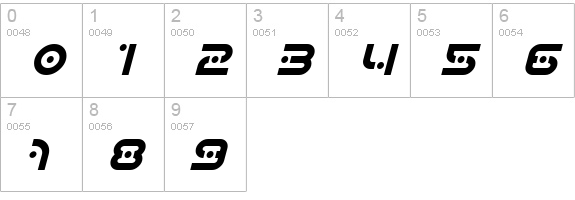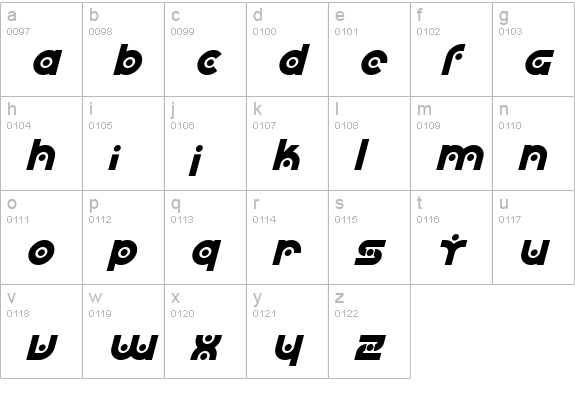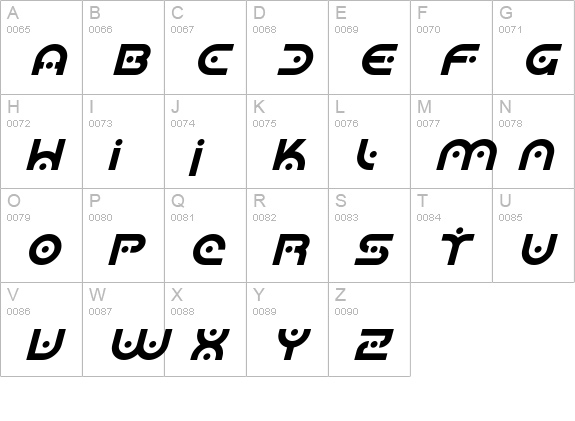
SF Planetary Orbiter Bold Italic Font Details
SF Planetary Orbiter Bold Italic is a strong, high-contrast, italic variant in the SF typeface family \xE2\x80\x94 well suited to headlines, attention-grabbing titles, and strong calls-to-action.
Introducing SF Planetary Orbiter Bold Italic, a captivating and futuristic font that seamlessly fuses boldness and elegance. This stunning typeface is designed to transport your imagination to the far reaches of the galaxy, capturing the essence of interstellar exploration and cosmic discovery. SF Planetary Orbiter Bold Italic stands out with its striking, slanted letterforms that exude a sense of adventure and innovation. Each character is meticulously crafted to reflect the sleekness and sophistication of advanced space technology, making it a perfect choice for any design project aiming to convey a sense of forward-thinking creativity. Whether you are designing a science fiction book cover, a futuristic movie poster, or a cutting-edge technology website, SF Planetary Orbiter Bold Italic is sure to leave a lasting impression. Its bold strokes and italicized angles create a dynamic visual presence, commanding attention and evoking a sense of awe and wonder. What's even more exciting is that SF Planetary Orbiter Bold Italic is available for free download at FontsMarket.com. This means that you can access this extraordinary font without breaking the bank, making it accessible to designers, artists, and enthusiasts alike. With just a few clicks, you can unlock the power of this stunning typeface and unleash your creativity like never before. So, why wait? Embrace the future and elevate your designs to new heights with SF Planetary Orbiter Bold Italic. Download it for free at FontsMarket.com, and embark on a typographic journey that will transport your audience to uncharted territories of imagination.